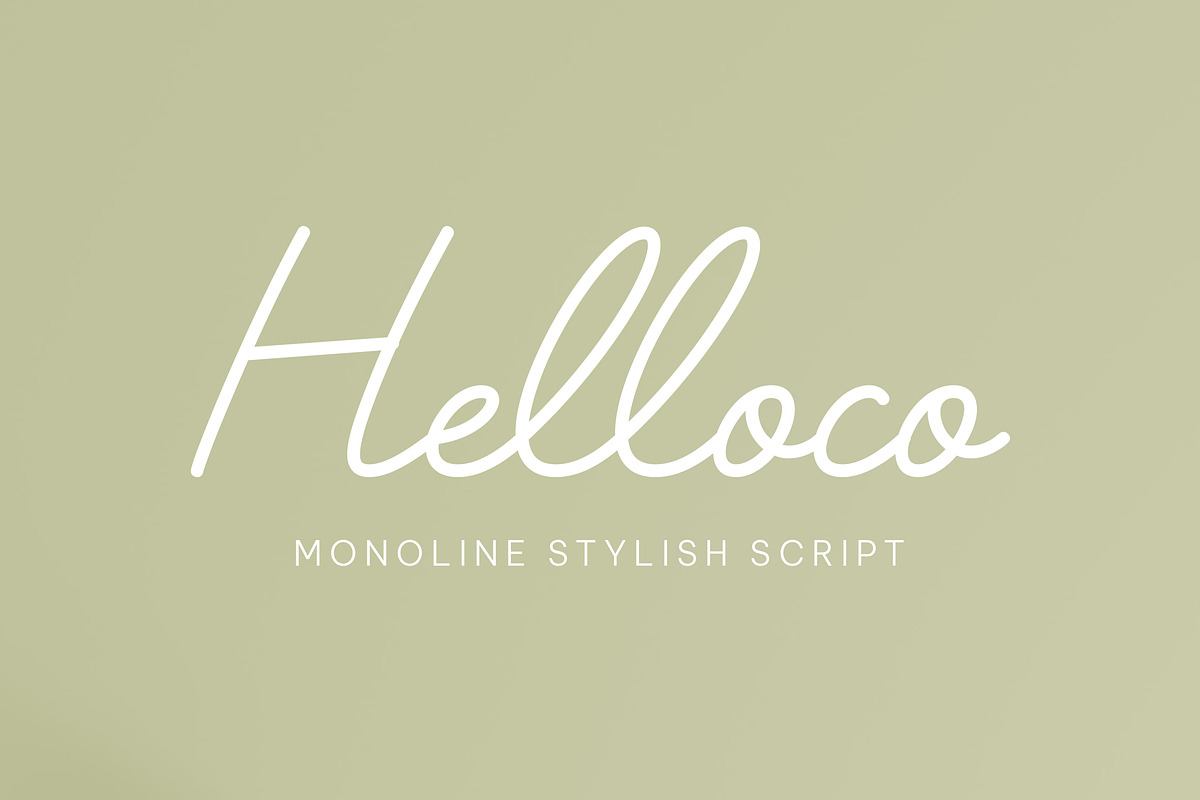
Helloco Font Free Download is a stylish and elegant monoline script typeface that brings a modern, sleek feel to your designs. With its smooth, consistent strokes and sophisticated look, Helloco is perfect for logos, branding, invitations, quotes, packaging, and any project that calls for a refined yet approachable script font.
This font features a fluid, handwritten style with a monoline structure, making it versatile for both formal and casual designs. It includes uppercase and lowercase letters, numerals, punctuation, and alternate characters, allowing you to create seamless, elegant typography with a personal touch.
Whether you're crafting a luxurious brand, a personalized wedding invitation, or trendy social media posts, Helloco Font Free Download adds a polished, stylish edge to your typography. Feel free to use it for personal or mockup projects, and be sure to obtain the appropriate license for any commercial use. Add a sophisticated, monoline touch to your designs with this beautiful script font.